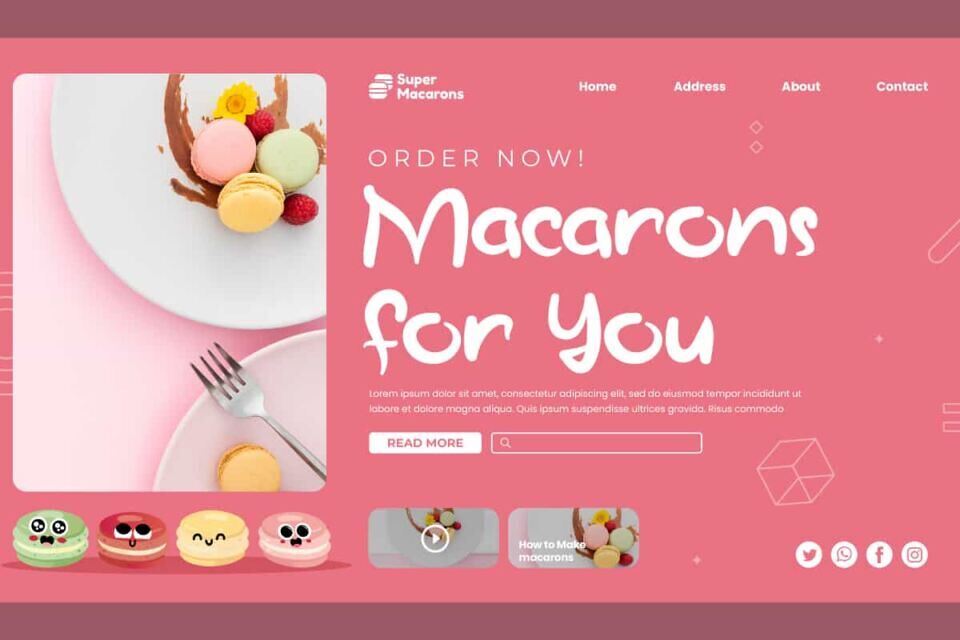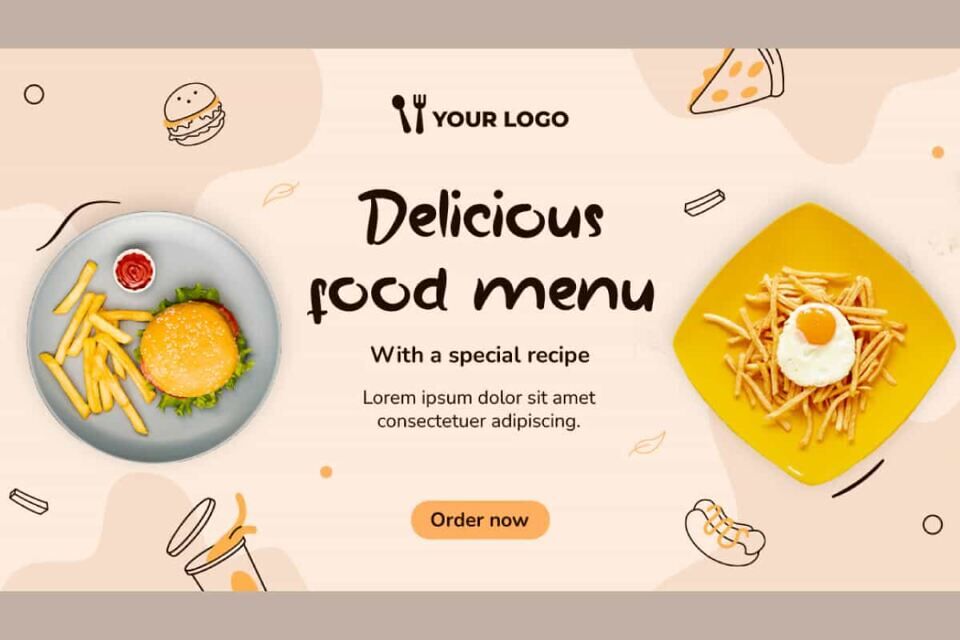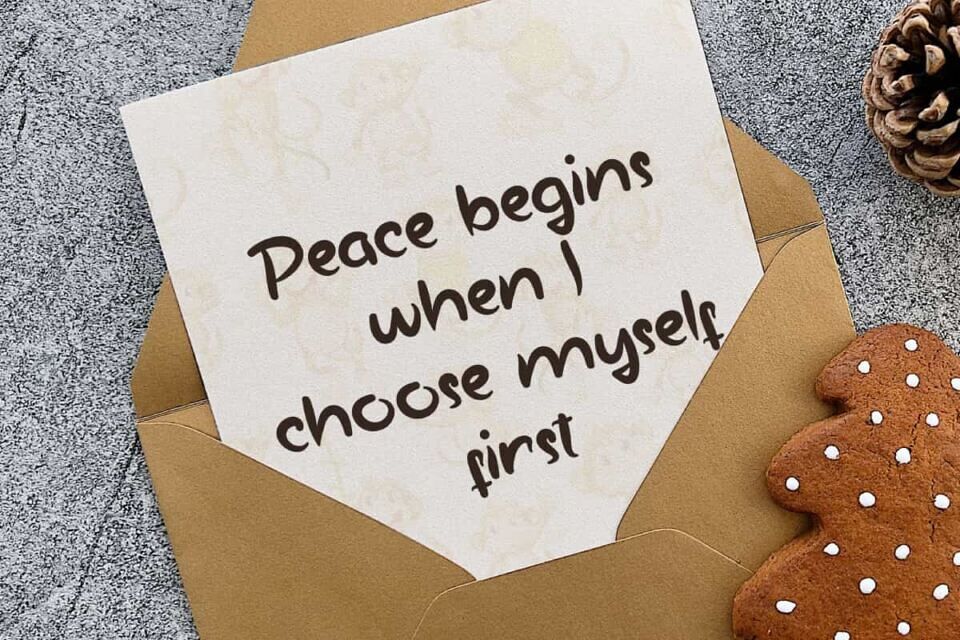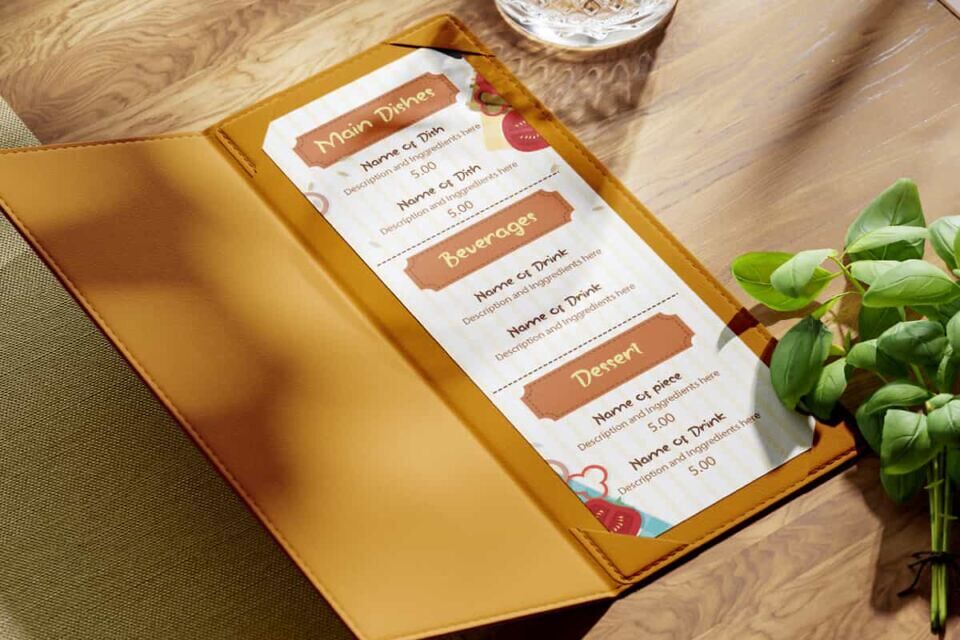
Monkey Pearl Font is an adorable playful cartoonist comic script-style font that has a modern touch. The character shapes in this font look adorable like a monkey’s curved tail. It will be good for any industries, such as bakery and pastry, advertisement, beauty product, café, fashion, florist, marketing, printing, publishing, and more!
Monkey Pearl Font includes full set of Uppercase and Lowercase Basic Characters, Numerals, Punctuation, and Symbol. Don’t think too much and jump into this font right away for your designs, such as cover, menu, brand image, brochure, custom design, gift box, greeting card, label, quotes, website, and more!